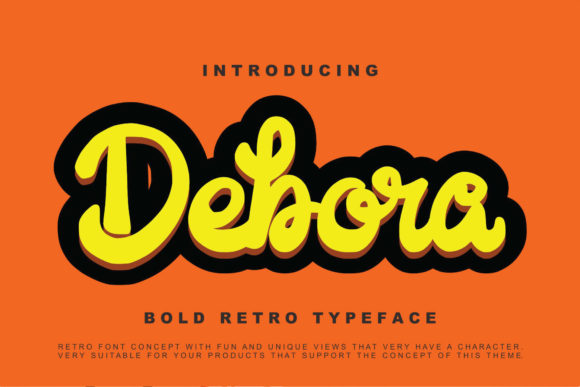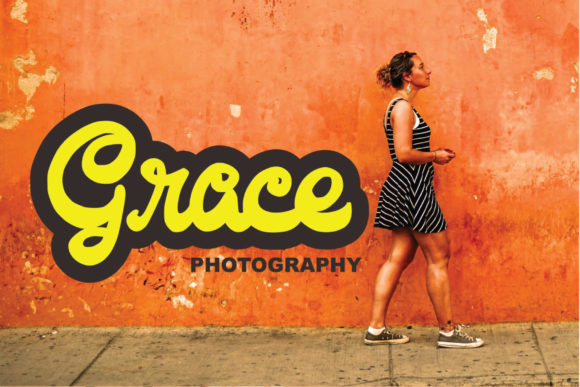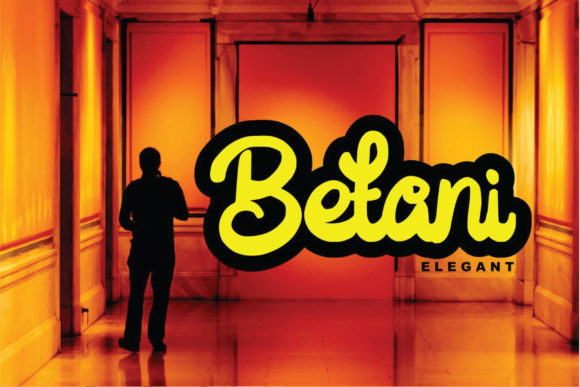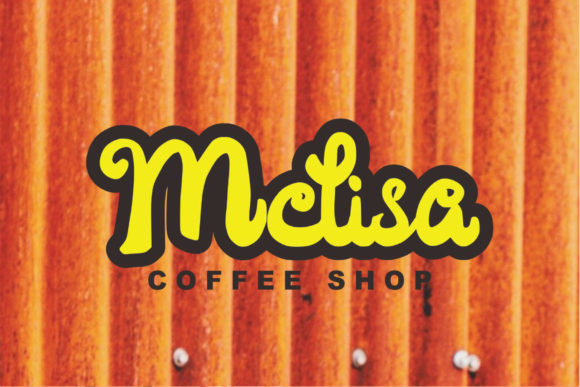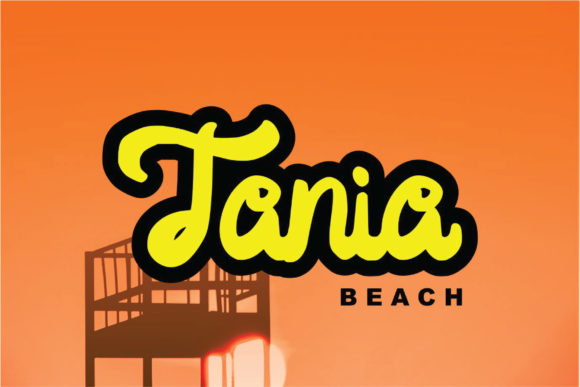
HomeScript FontsDebora Font Script Fonts Debora Font FacebookXPinterestWhatsApp Debora Font Poster 2 Debora Font Poster 3 Debora Font Poster 4 Debora Font Poster 5 About Debora Font Debora is a bold and chunky handwritten font with a vintage feel. DOWNLOAD ON CREATIVE FABRICAThis font is sold and delivered by Creative Fabrica. Font Canyon may earn a commission if you buy through this link. People also explored Seyolla Font Dreamie Font Stromeria Font Angel Font Orange Juice Font Classhome Font Knights Inn Font Neon Himala Font Coashela Notes Font 348 0 TagsDebora Font Previous articleEstrellasa FontNext articleMarlena Font LEAVE A REPLY Cancel reply Comment: Please enter your comment! Name:* Please enter your name here Email:* You have entered an incorrect email address! Please enter your email address here Website: Save my name, email, and website in this browser for the next time I comment. Personal Use Free Callisa Script Personal Use Free Read more about this font Consequences Personal Use Free Read more about this font Hanifah Personal Use Free Read more about this font Bamboomoe Personal Use Free Read more about this font BLOG Transform Your Website: Elevate Your Typography with 7 Best Web Font Generators Are you ready to transform your website's typography from ordinary to extraordinary? Great! Today, we're diving into the world of web font generators, which... Best Fonts for T-Shirt Design – Top 2025 Picks Where to Buy American Fonts Online in 2024 Elegant Wedding Invitation Fonts – Handwritten & Script Fonts